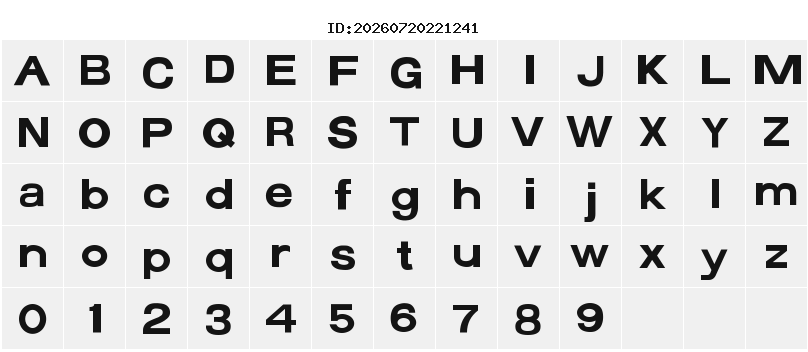
FontCreator Program 4-1.ttf is a modern, elegant sans-serif font designed for ultimate readability and visual harmony. Perfect for branding, headlines, web design, and print materials.